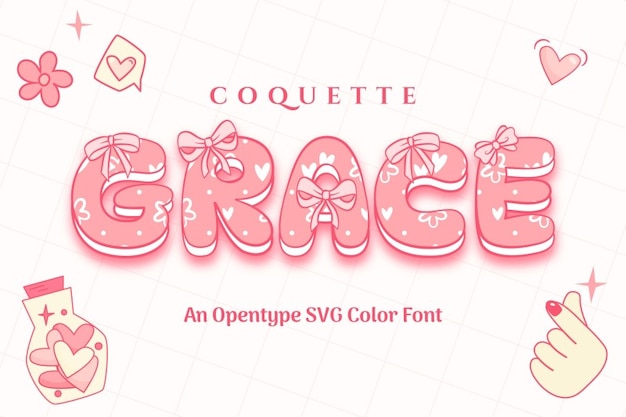
Coquette Grace is a font that captures a playful and cute essence, perfect for adding charm to any design. With its delicate curves and whimsical style, it embodies a flirtatious and elegant feel. Ideal for invitations, branding, and personalized stationery, Coquette Grace brings a touch of sweetness and sophistication to your projects, making them stand out with a unique allure.